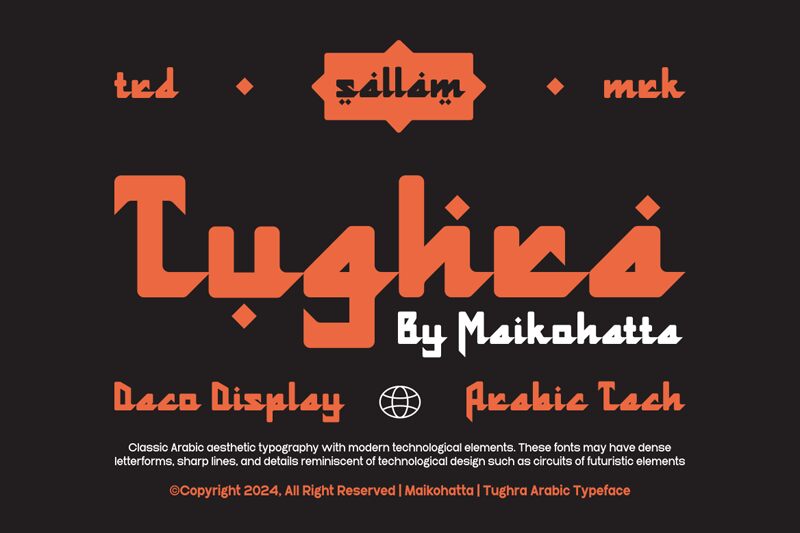
Tughra font family is a foreign typeface brought to you by Gilang Ternadho. The font comes in 2 font styles which each have their unique character while still managing to work cohesively together. This font family is best used for display purposes and will catch any reader’s attention thanks to its unique and amazingly developed letter styling.
Create designs that will stand out in posters, headlines, editorial work, movie covers, video games, entertainment designs, artwork, and many more. With this font, you don’t need to largely manipulate the letters to get something to your liking. Simply type in the letters, and you’re ready to go.